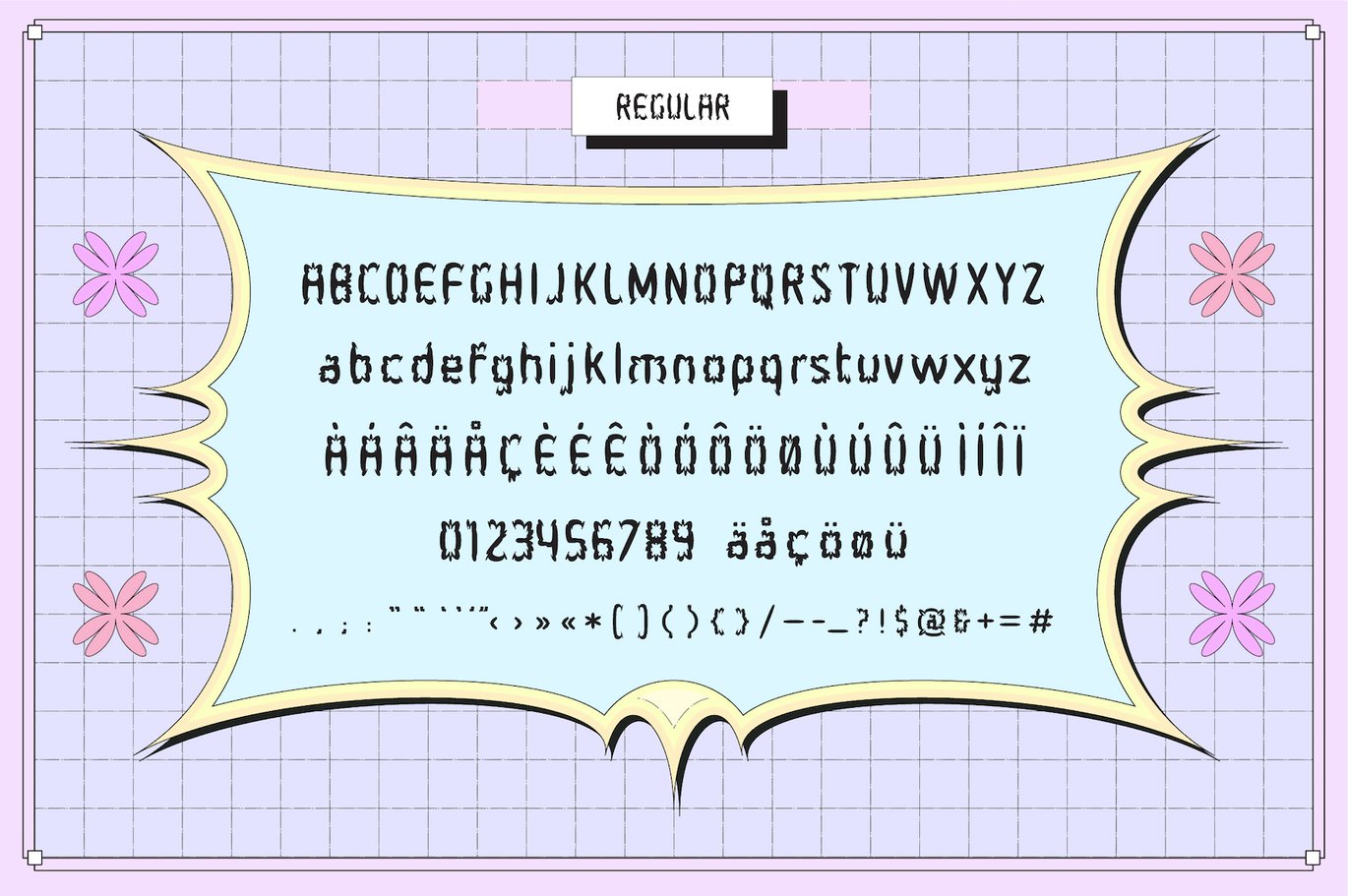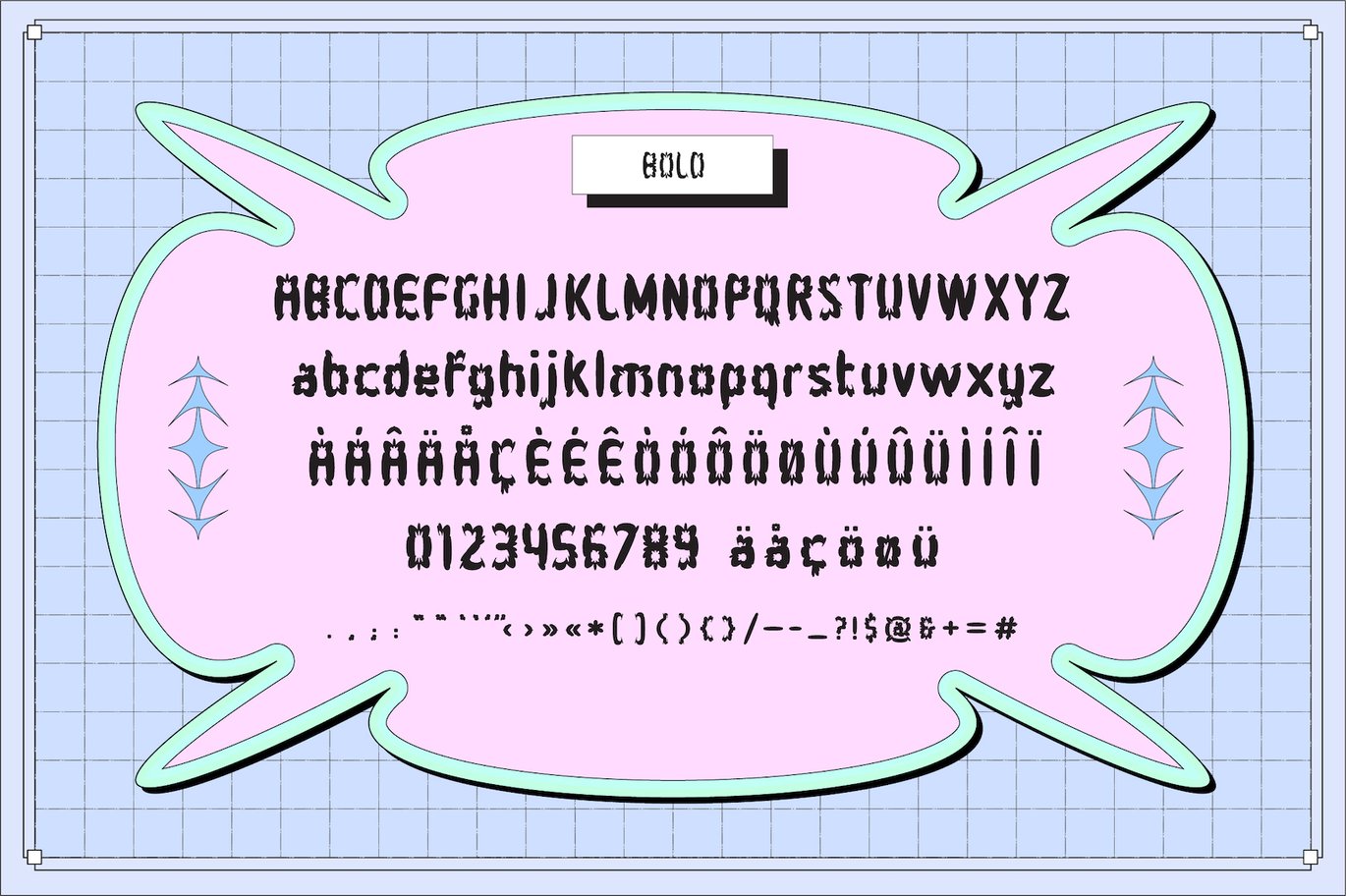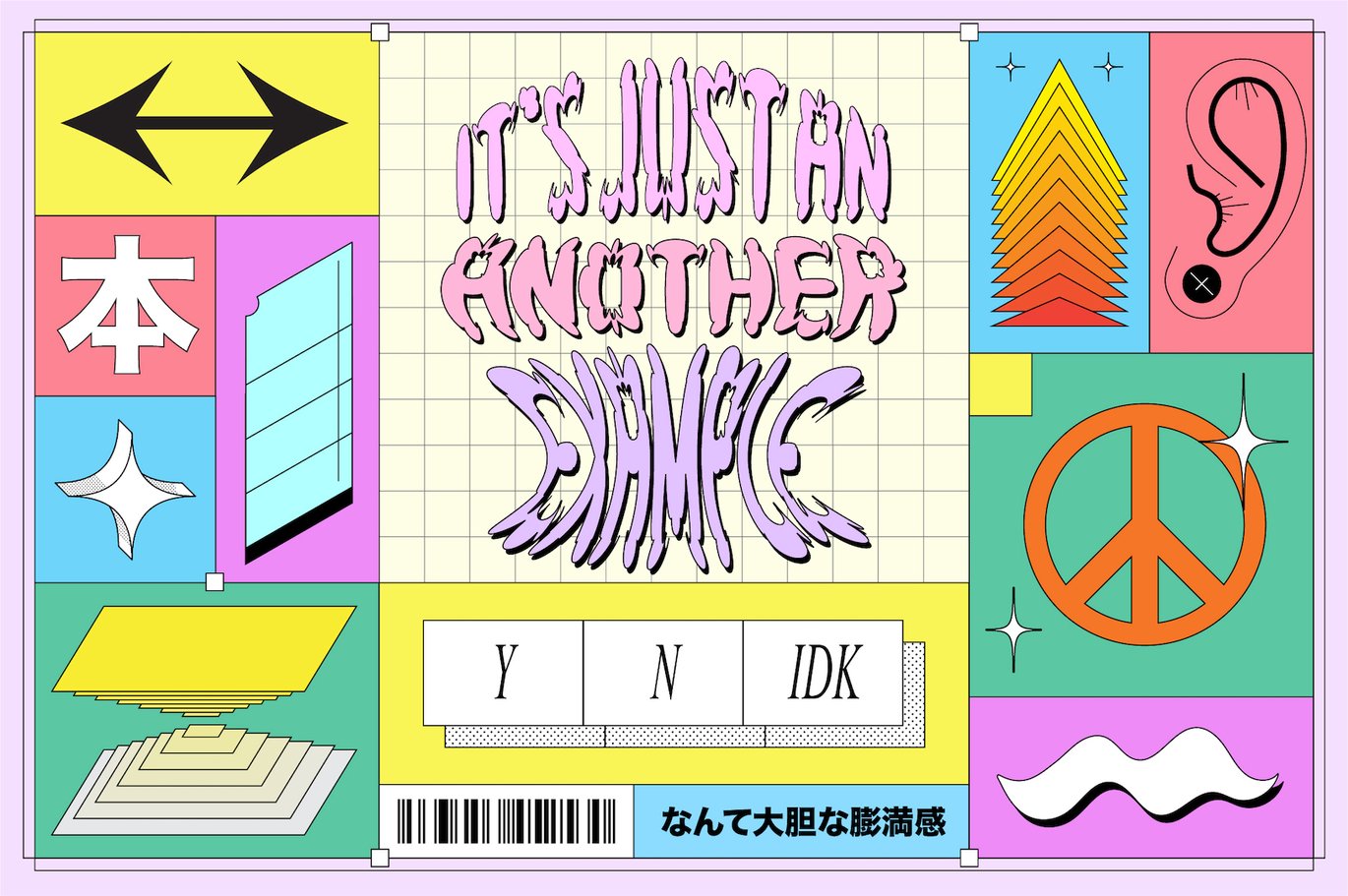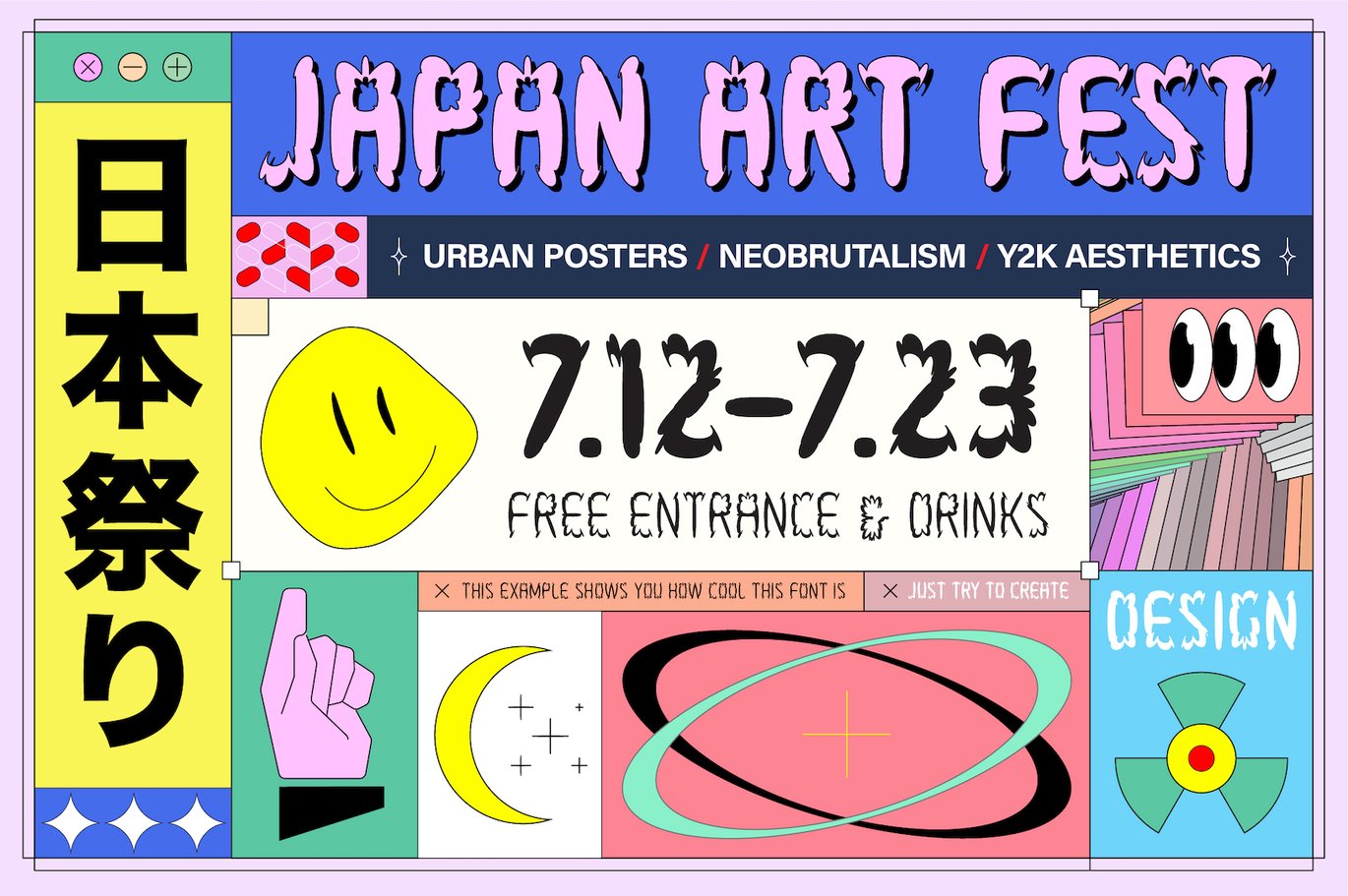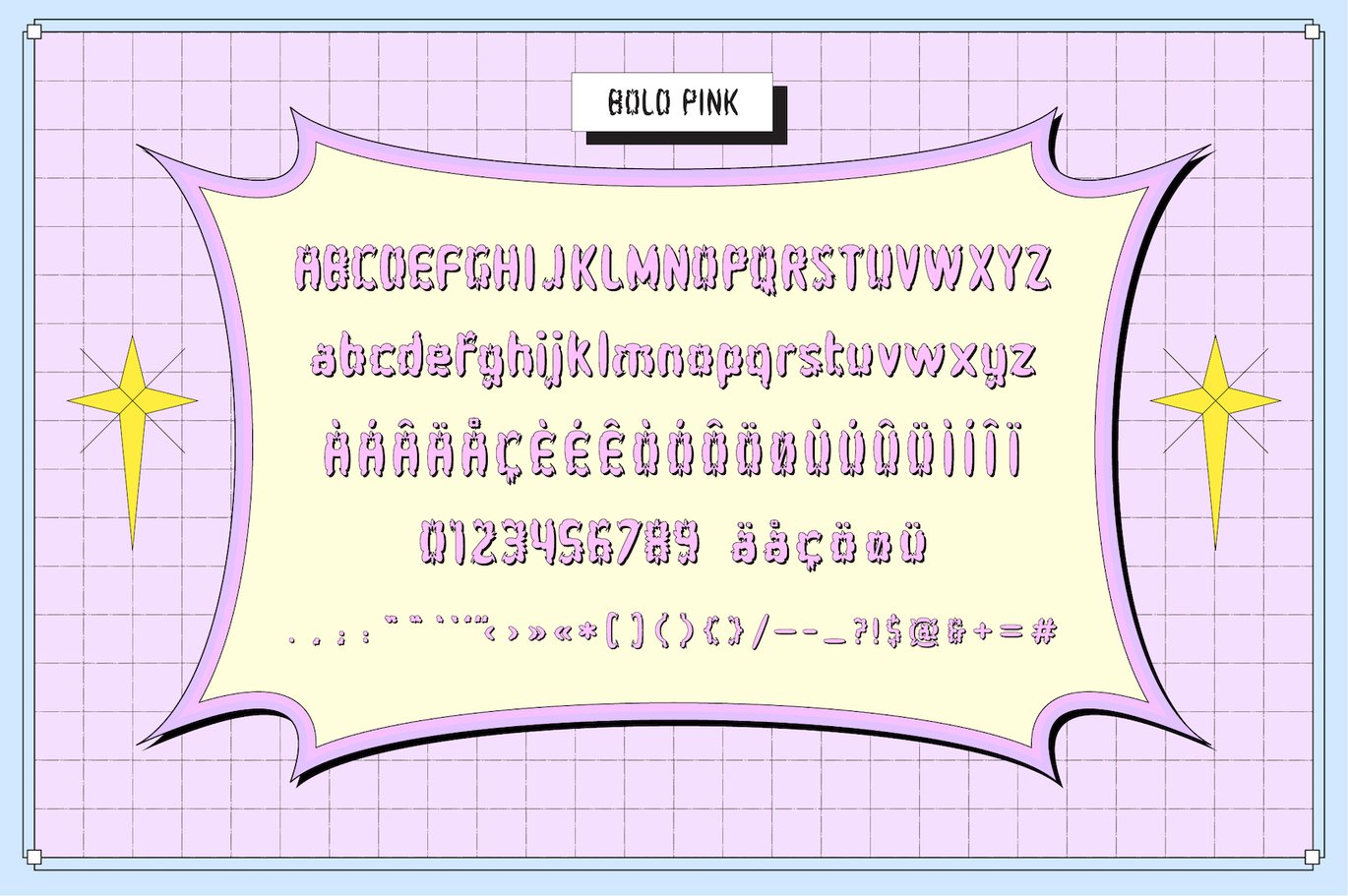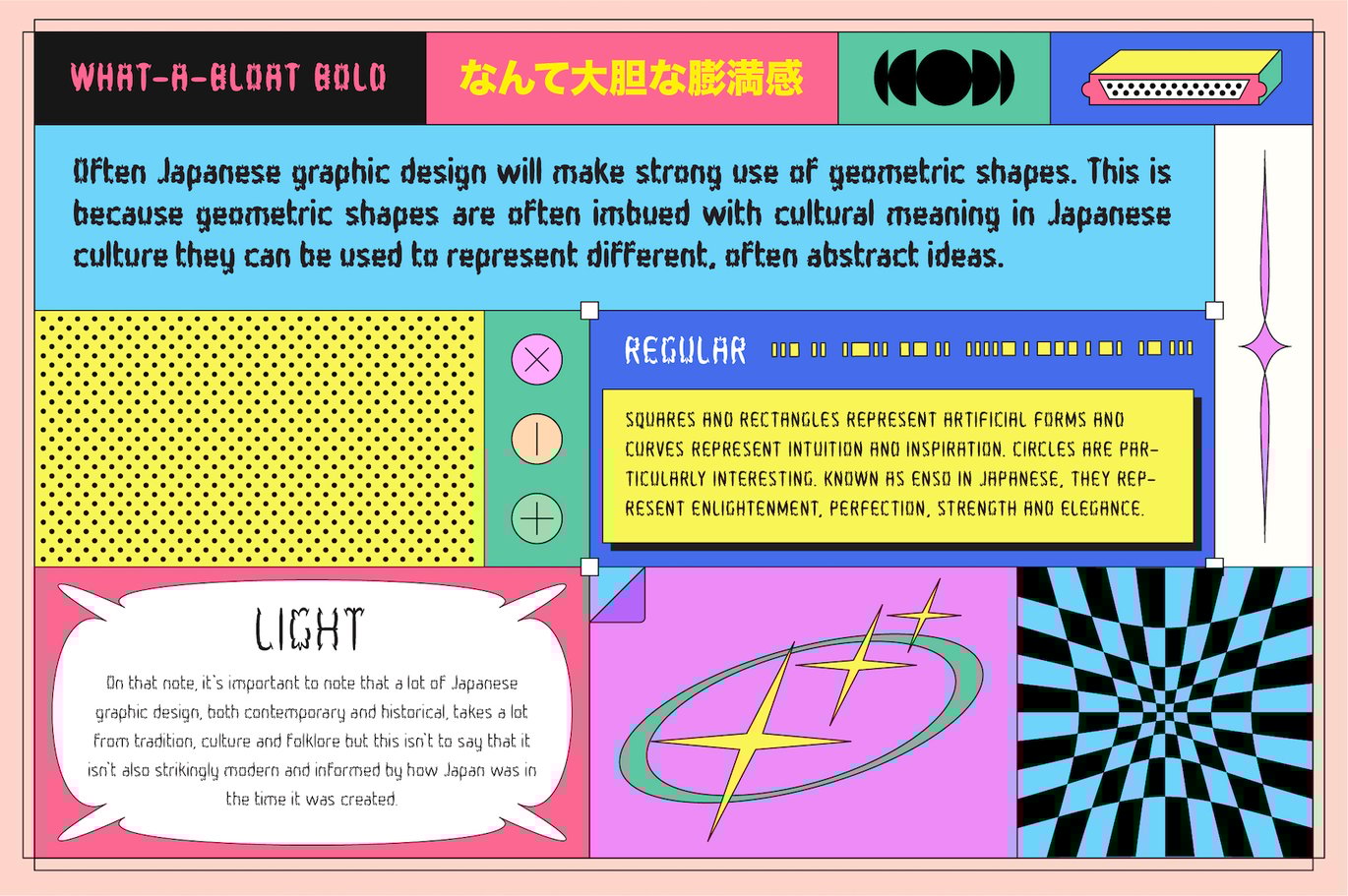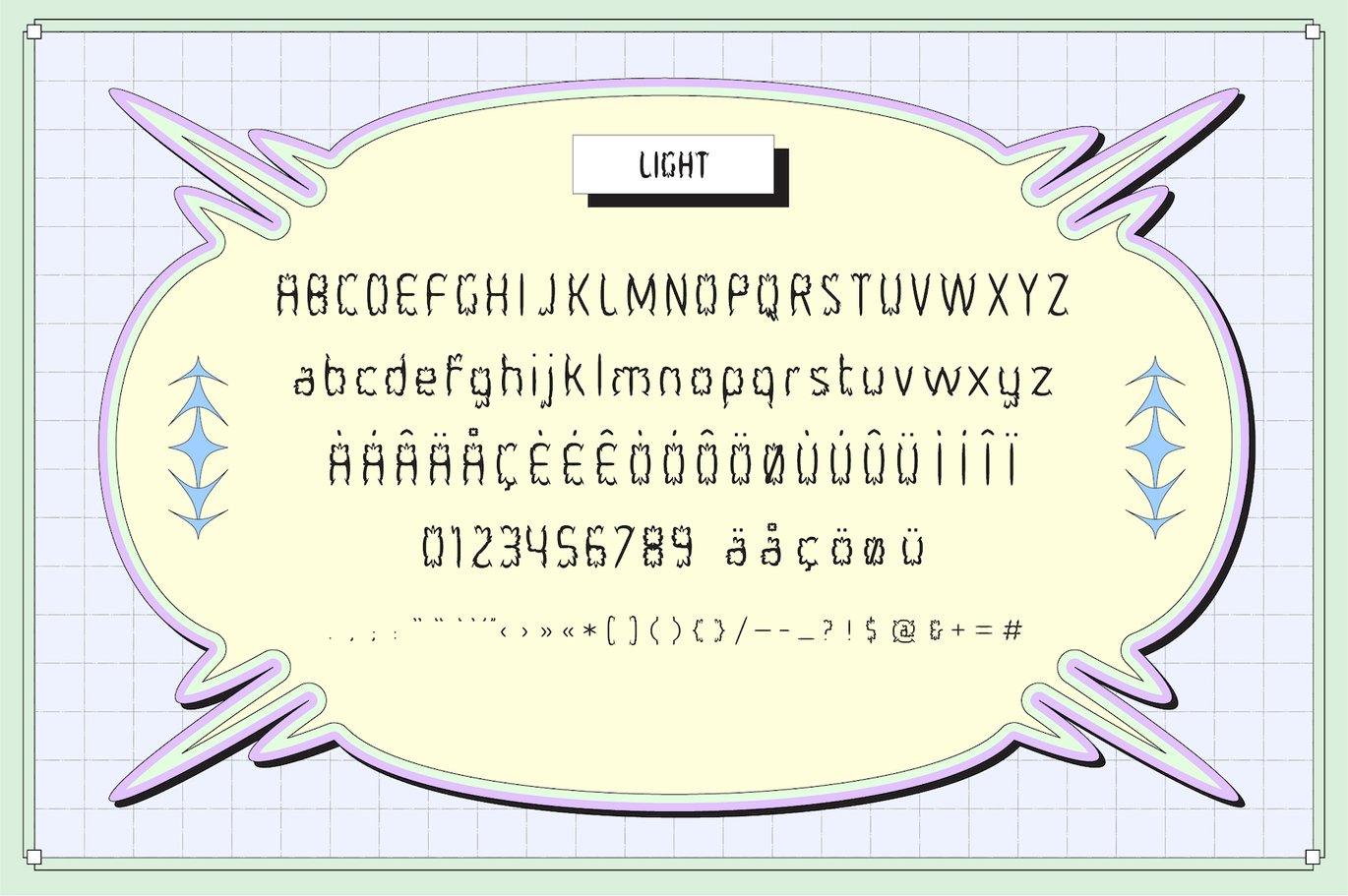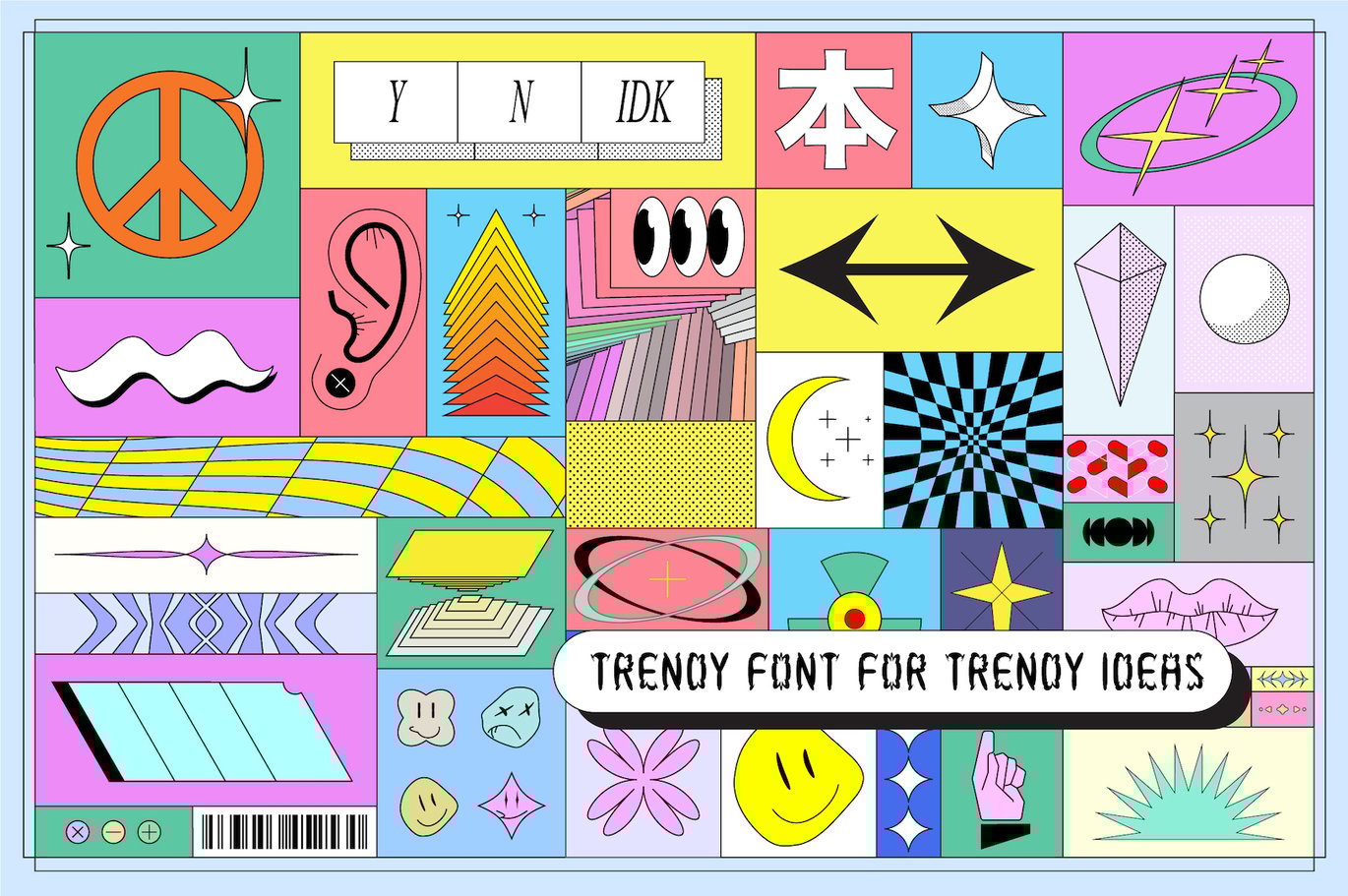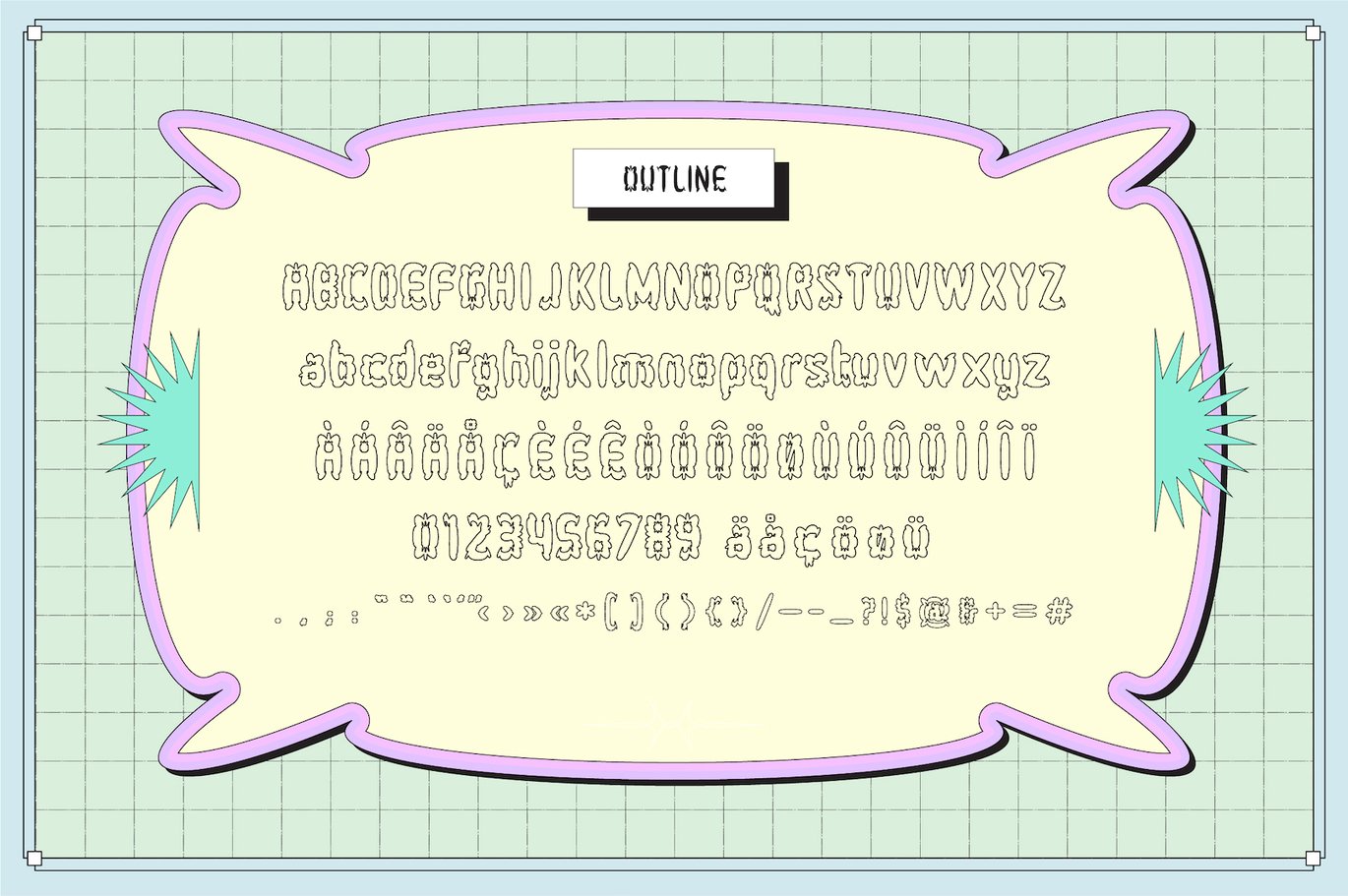
What-a-bloat | Font Family
Introducing What-a-bloat – Sweet late 90’s – early 2000’s bubble inspired font with 5 styles, including Regular, Light, Bold, Bold Pink and Outline with the full set of upper case, lower case, numbers, punctuation, symbols and multilingual letters. What-a-bloat – Inflated retro wave grotesk and trendy Y2K grunge styled font with the spirit of chaos and freedom of the early 2000’s era. Also this kind of style called graphic neobrutalism (neubrutalism) or maximalism. Rave parties in smoky locations, flyers with anti-design, shoes on huge platform as an inspire for this font and your next crazy projects.